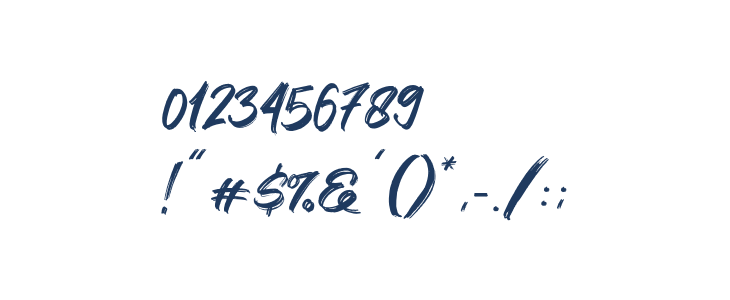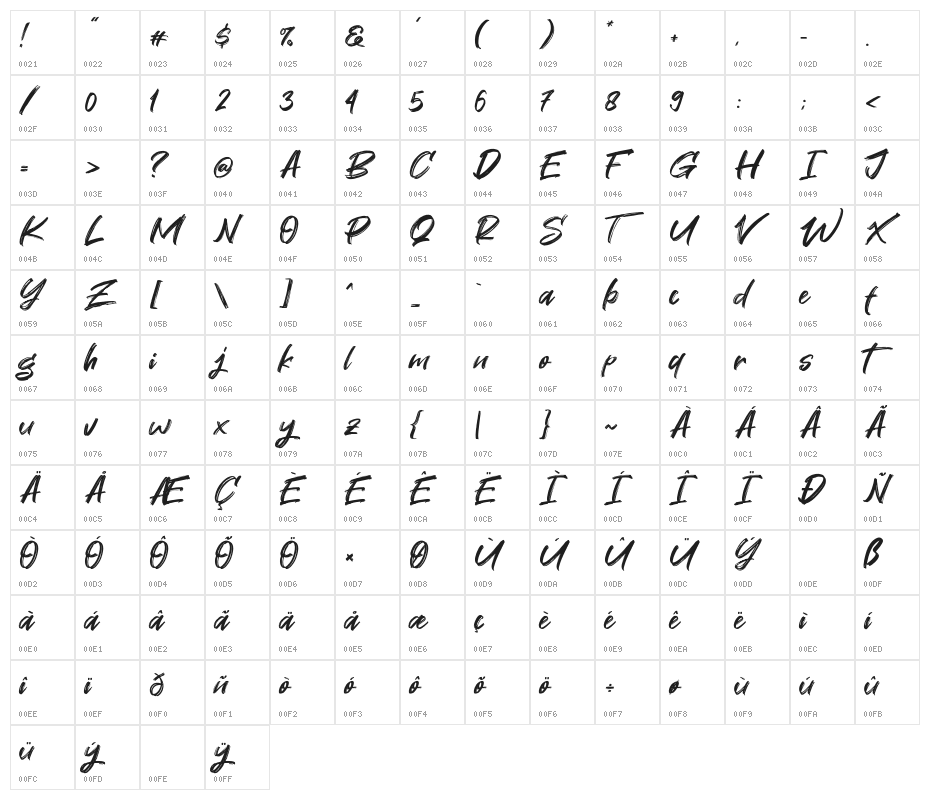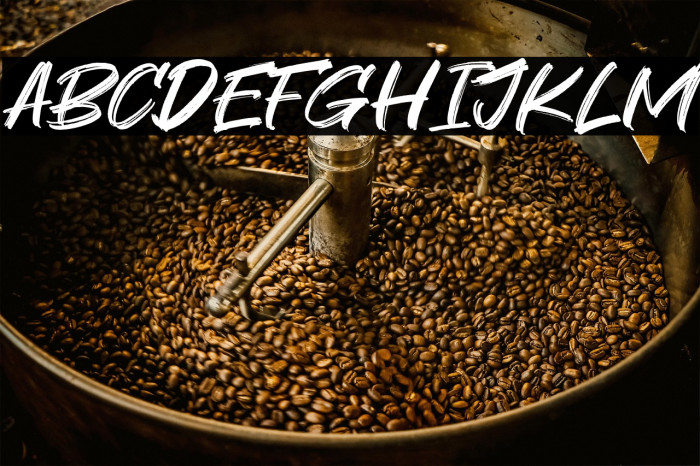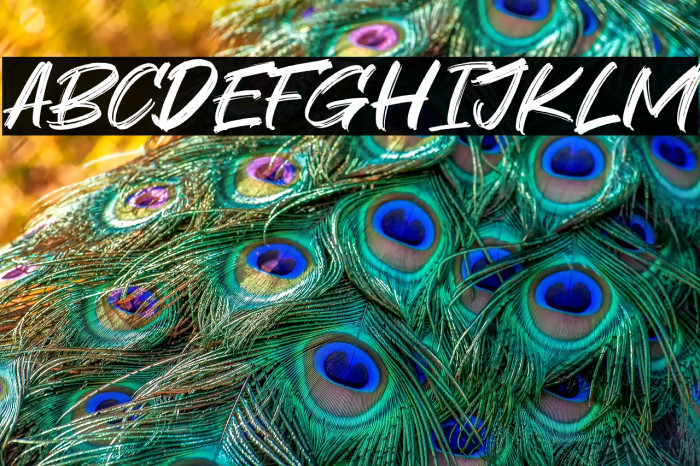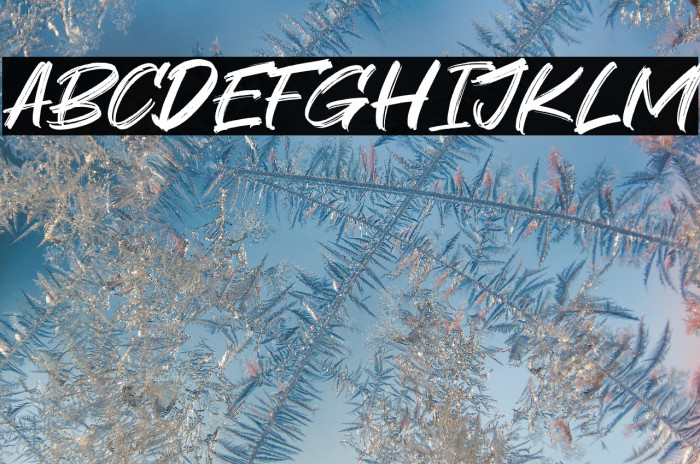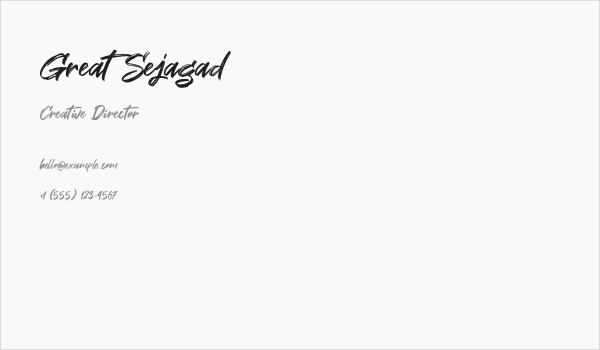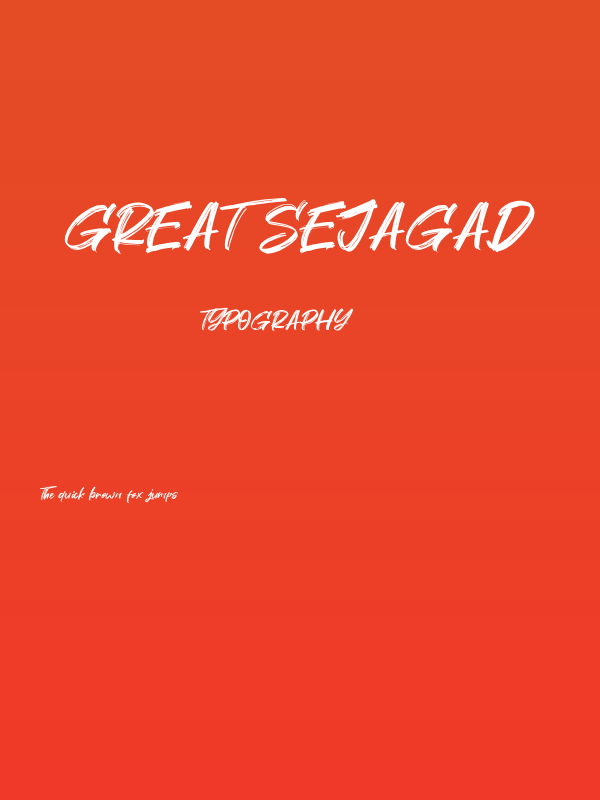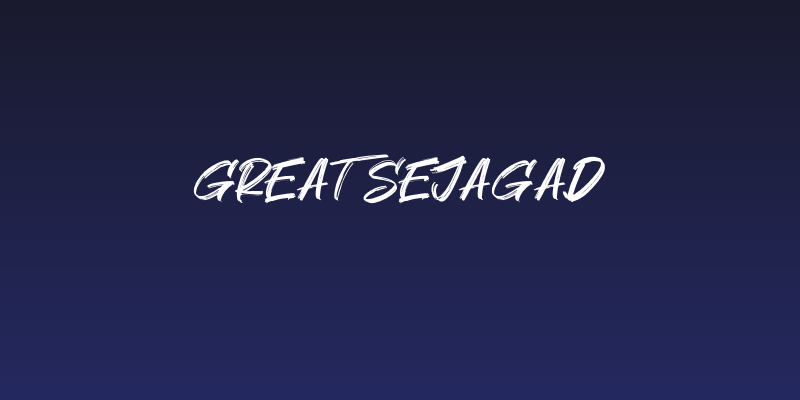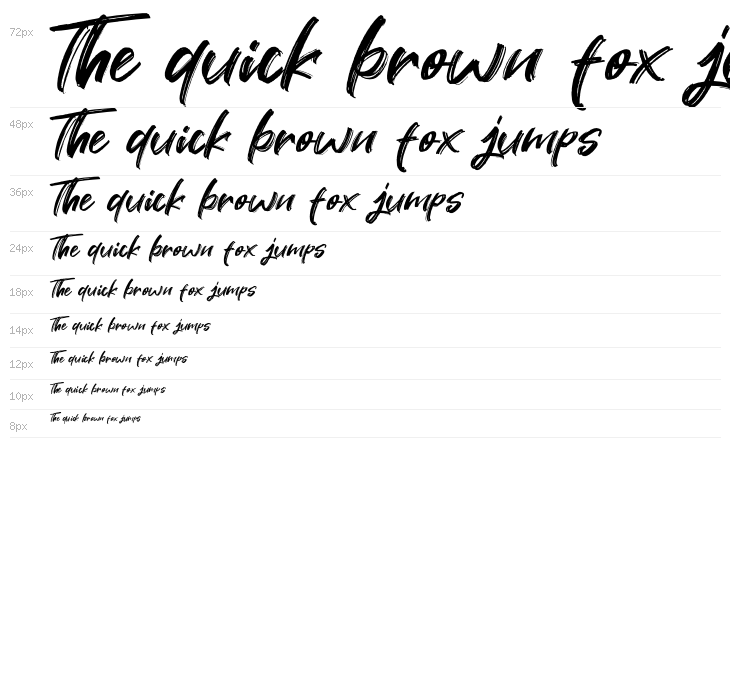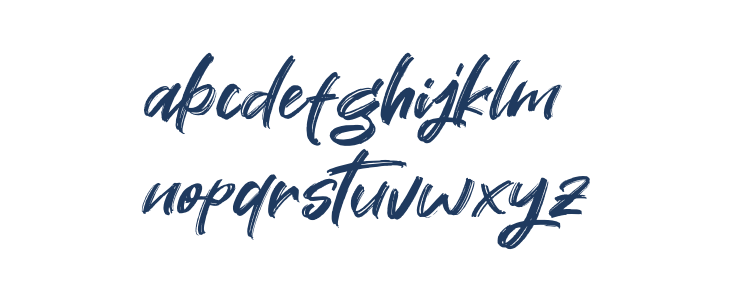
Great Sejagad Font
Great Sejagad Description
This font exhibits a bold, energetic style with a brush-like texture that gives it a dynamic and expressive appearance. The strokes are thick and varied, creating a sense of movement and spontaneity. The uppercase and lowercase letters maintain a consistent flow, while the numbers and special characters integrate seamlessly with the overall design. The font's artistic flair makes it suitable for creative and eye-catching designs, where a strong visual impact is desired.
| Overall Style | Modern, Artistic |
| Proposed Projects | Ideal for posters, branding, album covers, and any project requiring a bold, artistic touch. |